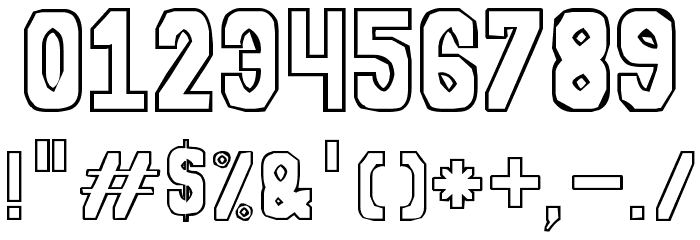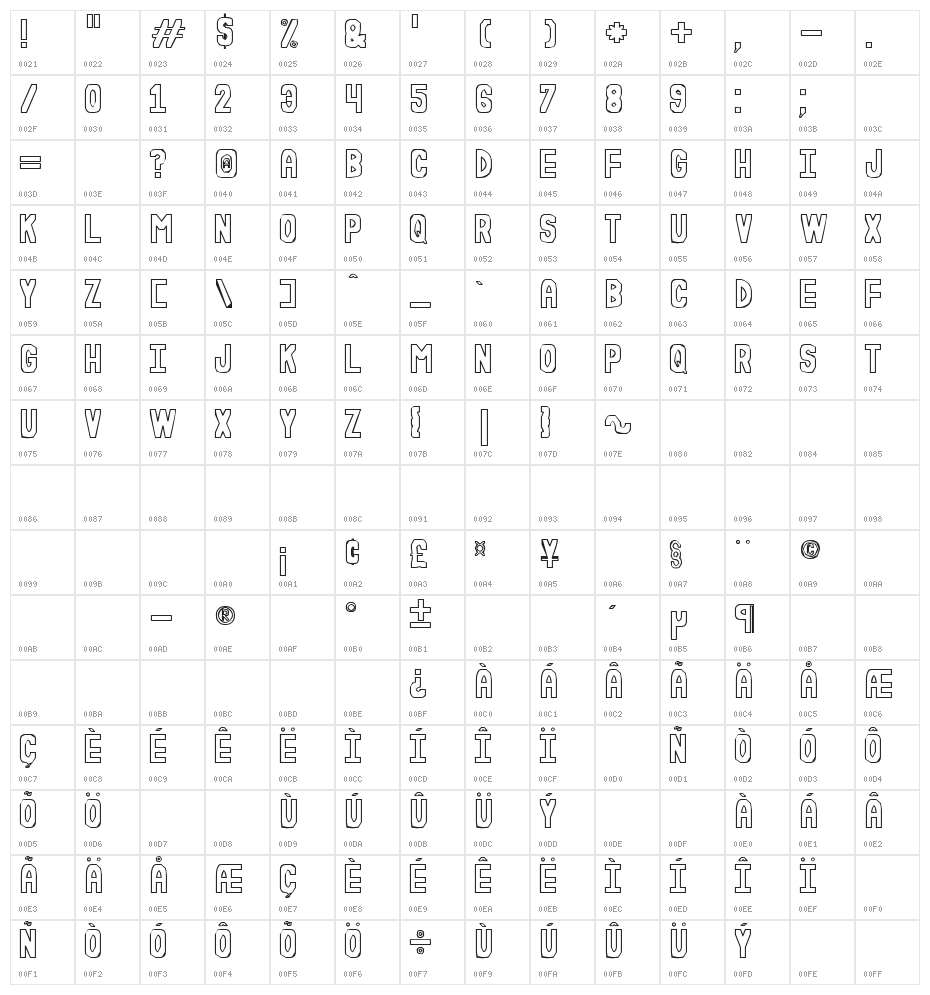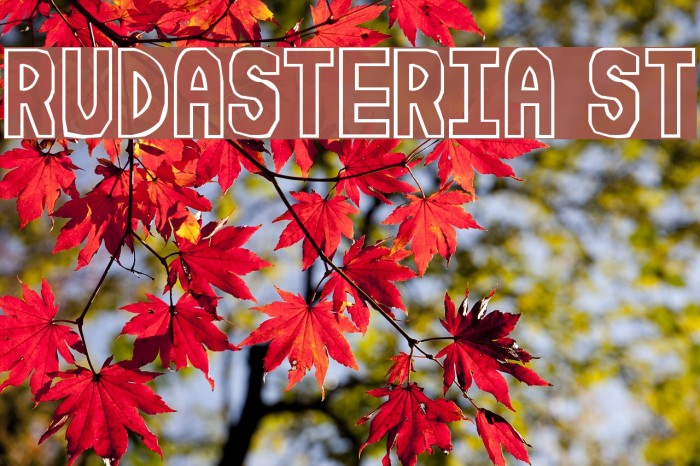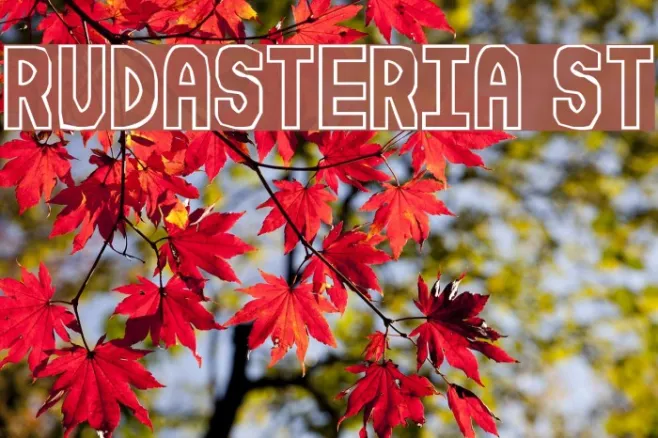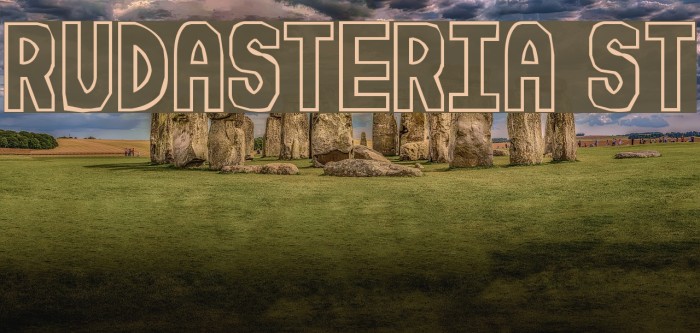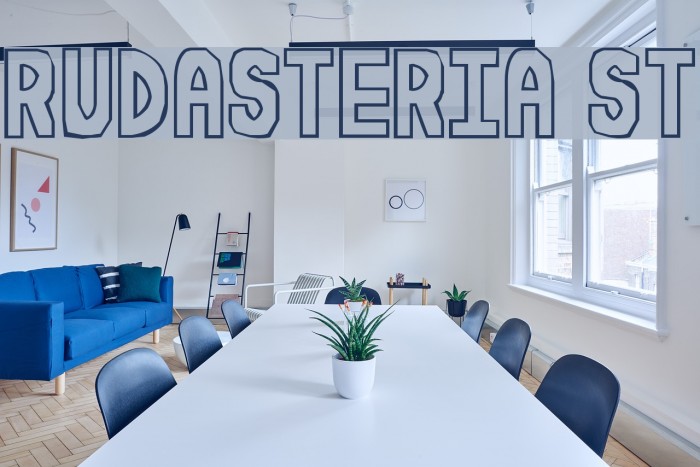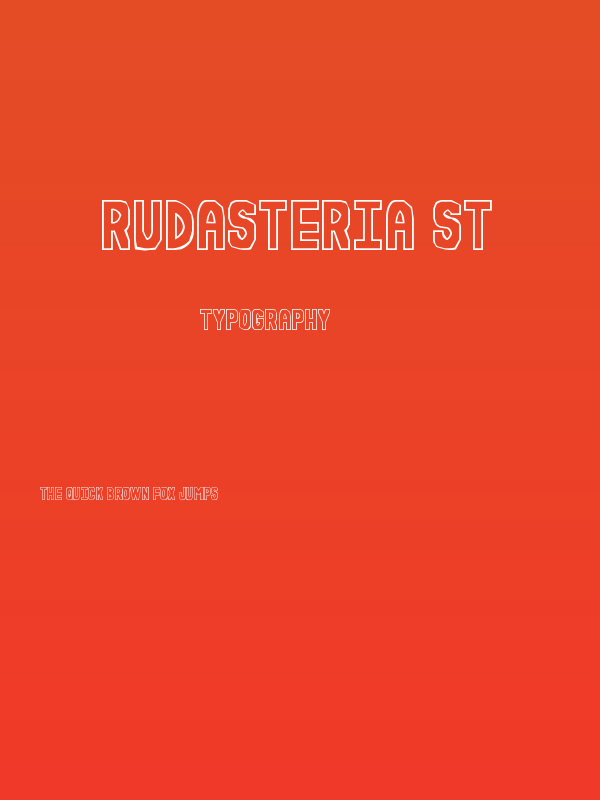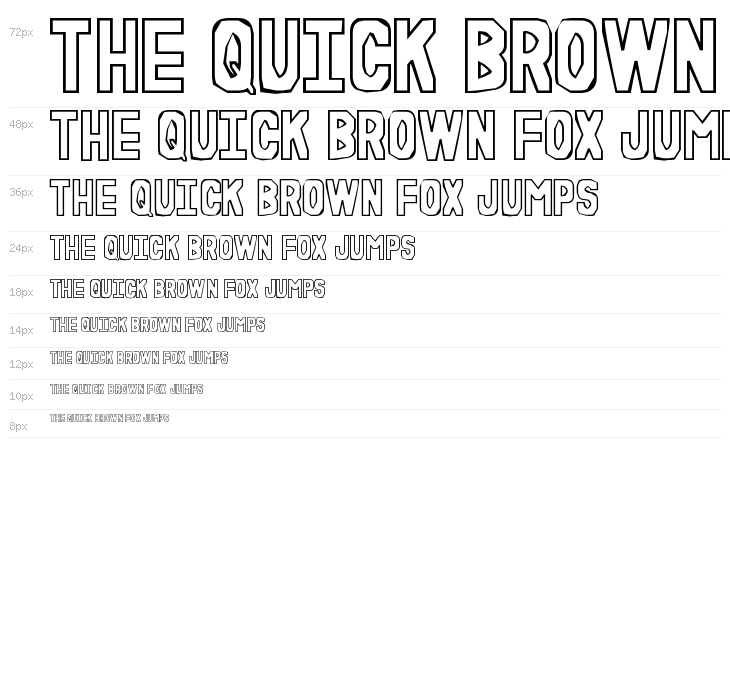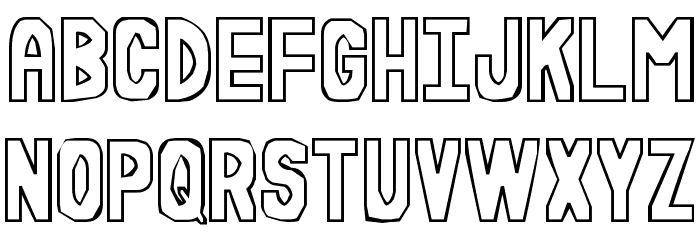
Rudasteria St Font
Rudasteria St Description
This font features a bold, geometric design with a hollow interior, giving it a distinctive outline appearance. The characters are uppercase and have a uniform thickness, which adds to the boldness and clarity of the font. The style is modern and slightly futuristic, with clean lines and sharp angles that create a sense of precision and structure. The spacing between characters is normal, ensuring readability while maintaining a strong visual impact. This font is ideal for creating eye-catching headlines or titles that demand attention.
| Proposed Projects | This font is perfect for branding projects, posters, and any design work that requires a strong, impactful headline. It can also be used in digital media, such as website headers or social media graphics, where a modern and bold statement is needed. |